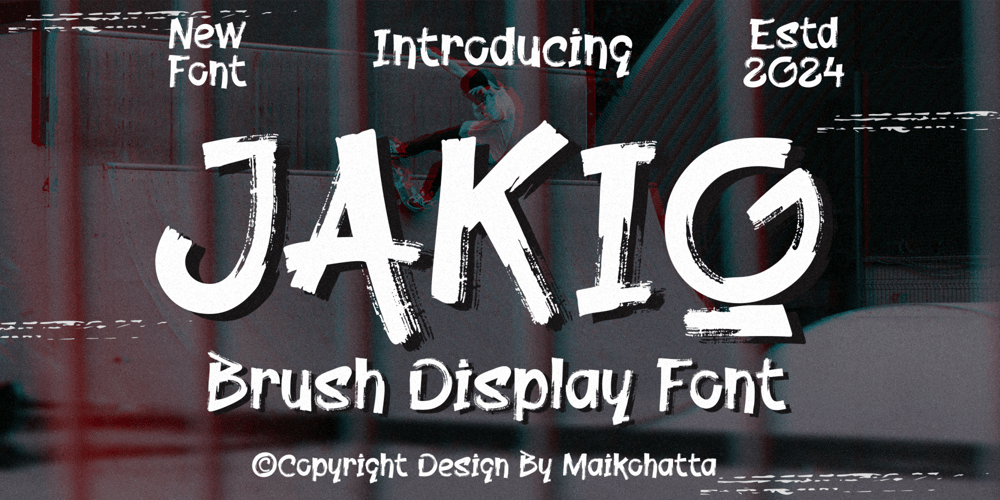
Jakio Font Family was designed by Gilang Ternadho and published by Maikohatta. Jakio contains 1 styles and family package options. Introducing our new product Jakio – Brush Display FontThis font features a combination of boldness and readability, merging the expressive brush handwriting style with contemporary design elements. It creates a fresh, dynamic look that aligns seamlessly with modern design aesthetics and is frequently employed in logo design, marketing materials, signage, and various projects requiring a contemporary and expressive touch. Its design excellence makes it a popular choice for conveying messages with a dynamic and engaging style.